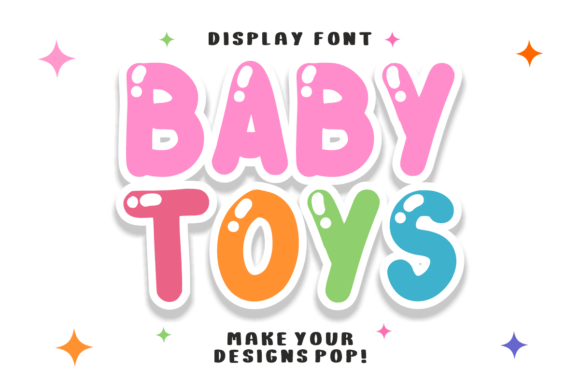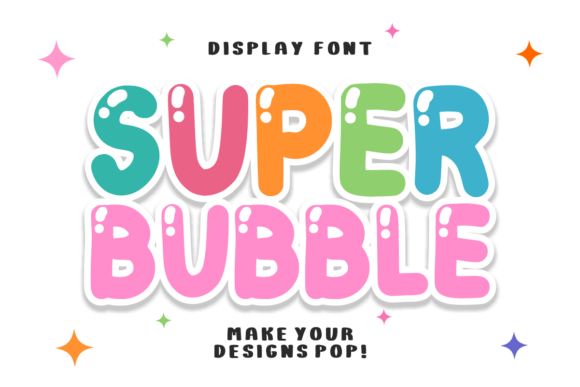
Introduction to Playful Bubble Font
Have you ever found yourself scrolling through social media, and suddenly, a beautifully designed graphic catches your eye? For many of us, it’s the perfect moment when creativity strikes – the idea for a new project forms, and we can’t wait to bring it to life. As designers, we’re always on the lookout for that special something that sets our work apart, and today, I’m excited to introduce you to a game-changing design resource: the Playful Bubble Font.
This charming font is more than just a pretty face – it’s a high-quality design element that’s perfect for adding a touch of whimsy to your creative project. With its soft, rounded edges and glossy highlight detail, the Playful Bubble Font is sure to bring a smile to your face. Whether you’re working on a kids’ party invitation or a trendy sticker design, this font is sure to make your work stand out.
Key Features of Playful Bubble Font
- High-quality, hand-drawn design perfect for creative projects and a design resource for artists.
- Unique, playful bubble style with a transparent background, allowing for easy customization and versatility.
- Designed to add a touch of whimsy and fun to any project, making it an excellent choice for children’s books, party invitations, and more.
- Supports a wide range of languages, including Latin, Cyrillic, and Greek, making it a versatile design resource for global projects.
Honest Review: Playful Bubble Font
As a designer, I’m always on the lookout for high-quality design resources to elevate my creative projects. The Playful Bubble Font is a delightful addition to my toolkit, and I’m excited to share my honest review.
- ✨ The font’s transparent background allows for seamless integration with various design elements, giving me the flexibility to create visually appealing compositions.
- ✨ The bubble-like shapes add a playful touch to my designs, making them perfect for projects that require a lighthearted tone.
- ⚠️ The font’s consistency may be a concern for some users, as the bubble shapes can vary slightly in size and positioning.
- ⚠️ The font may not be suitable for projects requiring a more serious or formal tone.
Overall, I’m impressed with the Playful Bubble Font’s potential to add a creative spark to my designs. While it may not be perfect, its unique charm and flexibility make it a valuable resource for designers working on a wide range of projects.
Common Use Cases for Playful Bubble Font
Playful Bubble Font is ideal for designing social media graphics, invitations, and other creative projects that require a playful and fun touch. Its high-quality design and transparent background make it perfect for adding a professional finish to your designs.